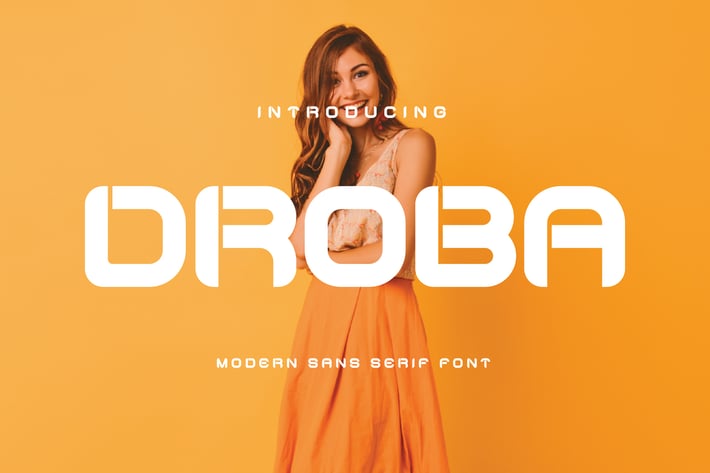
Droba - Sans Serif Font
Droba Sans Font Typeface inspired by the famous minimalist logo perfect for the purposes of designing templates, brochures, videos, advertising branding, logos, invitation, layout design, elegant crafting, beauty design and other.